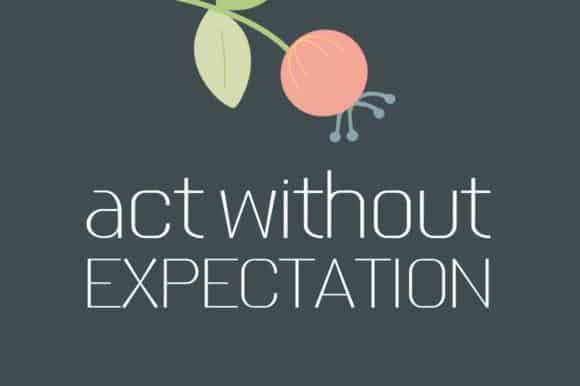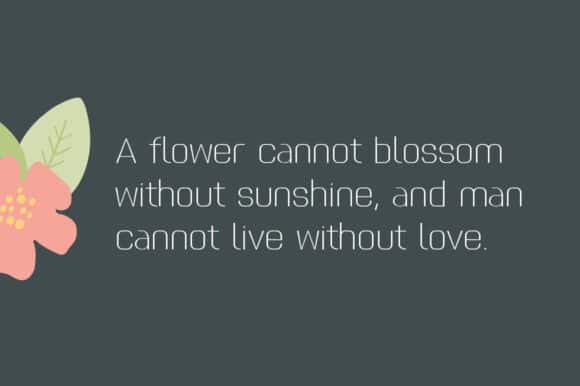
Donne Sans Serif Font
Hello Everyone. Donne Sans Serif Font is a modern sans serif typeface with a classic touch. It will turn any design project into a stand out! The design provides a unique look to the monospaced genre by using a contrast where the vertical strokes are a little thinner with horizontal strokes thicker.
While monospaced fonts are typically used for smaller body text, the slightly unusual quirks of a reverse contrast design make it interesting enough to also use for display treatments. So style and function are blended.